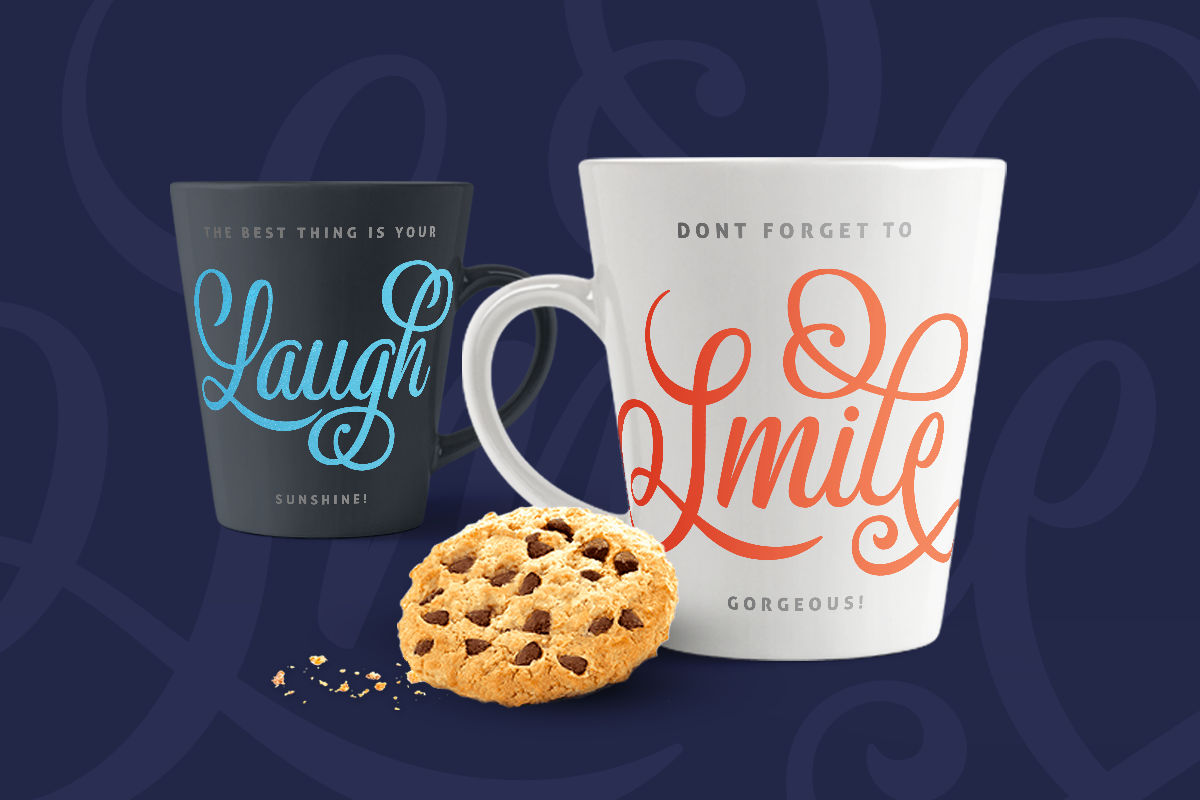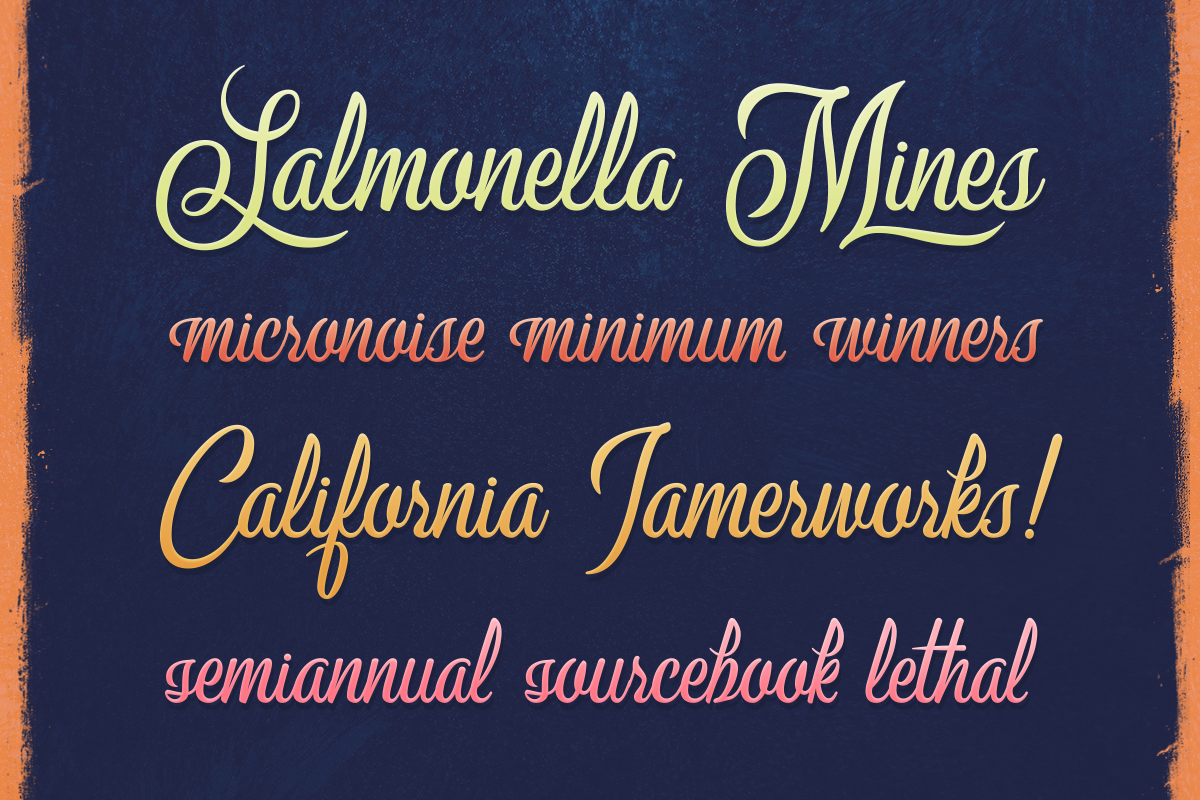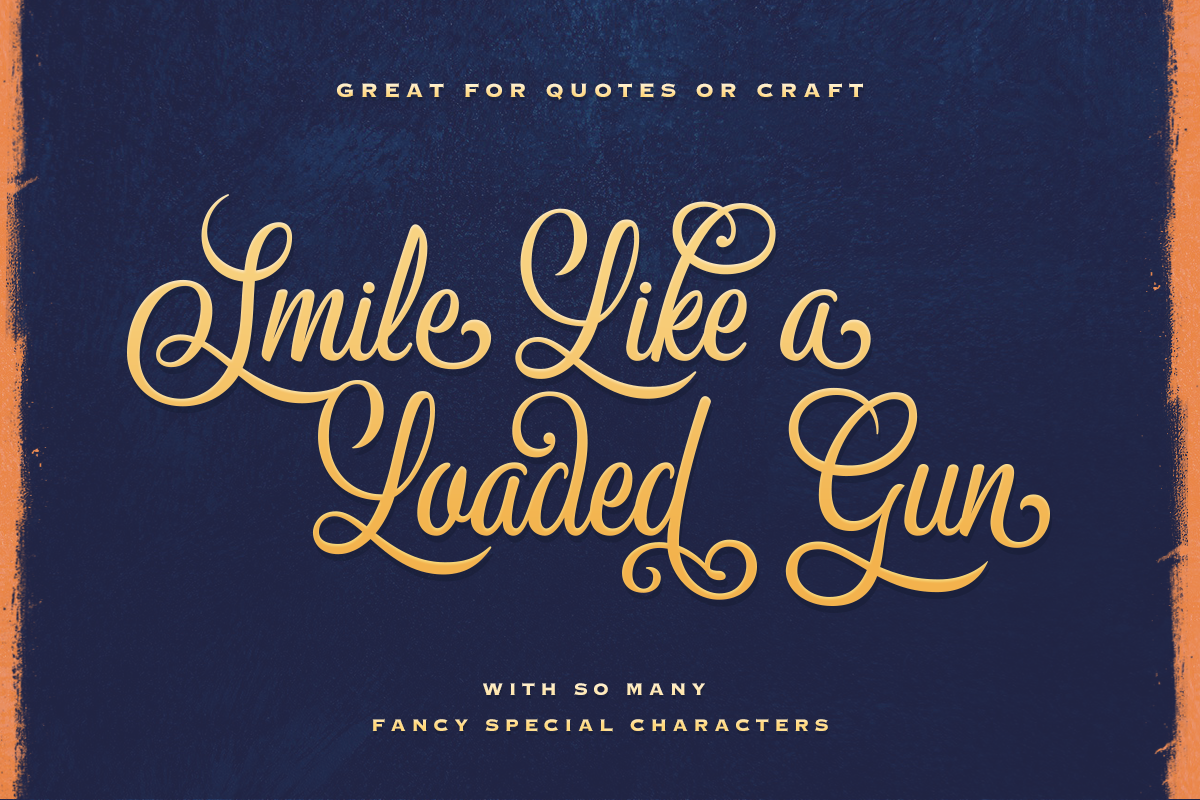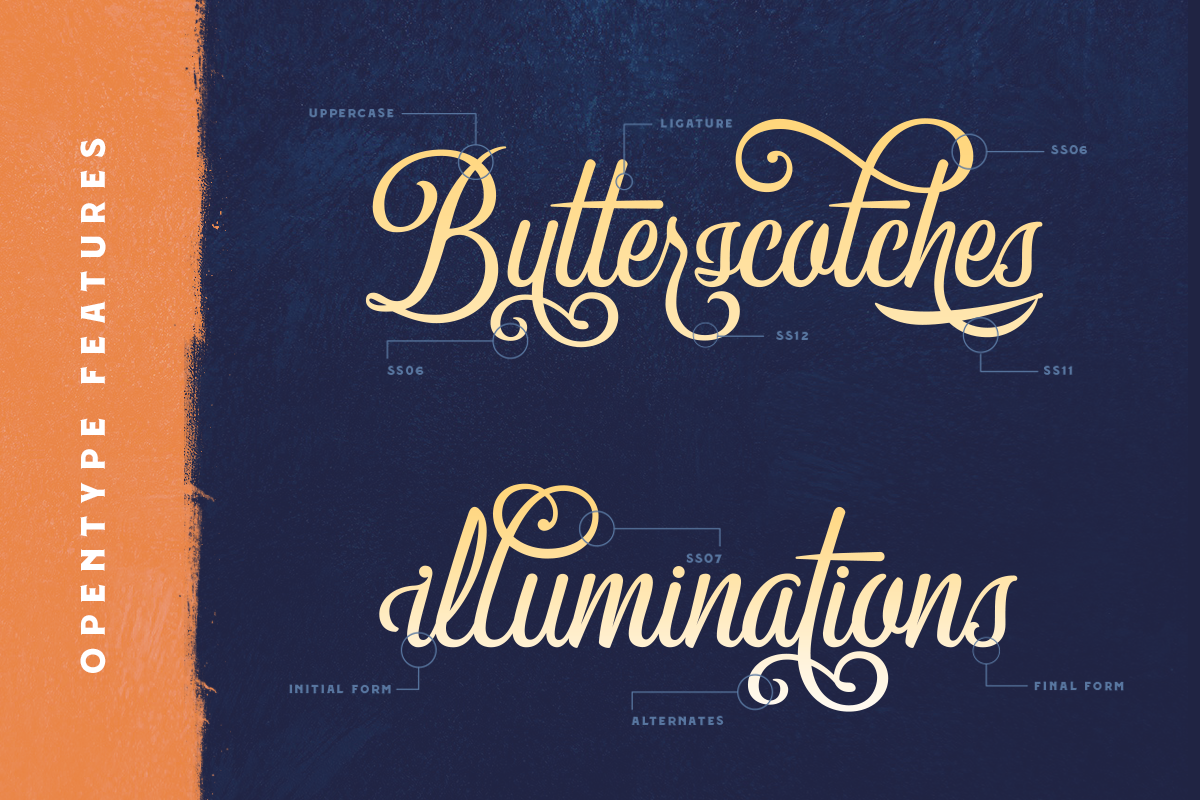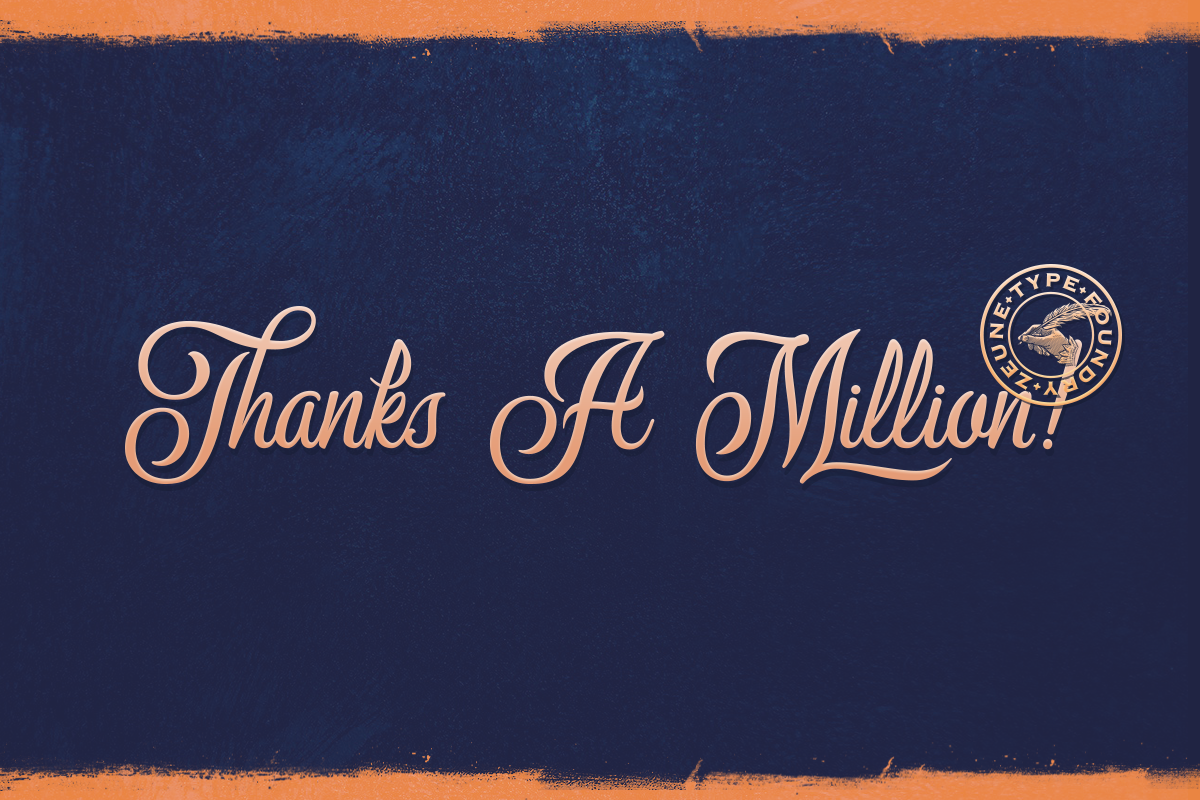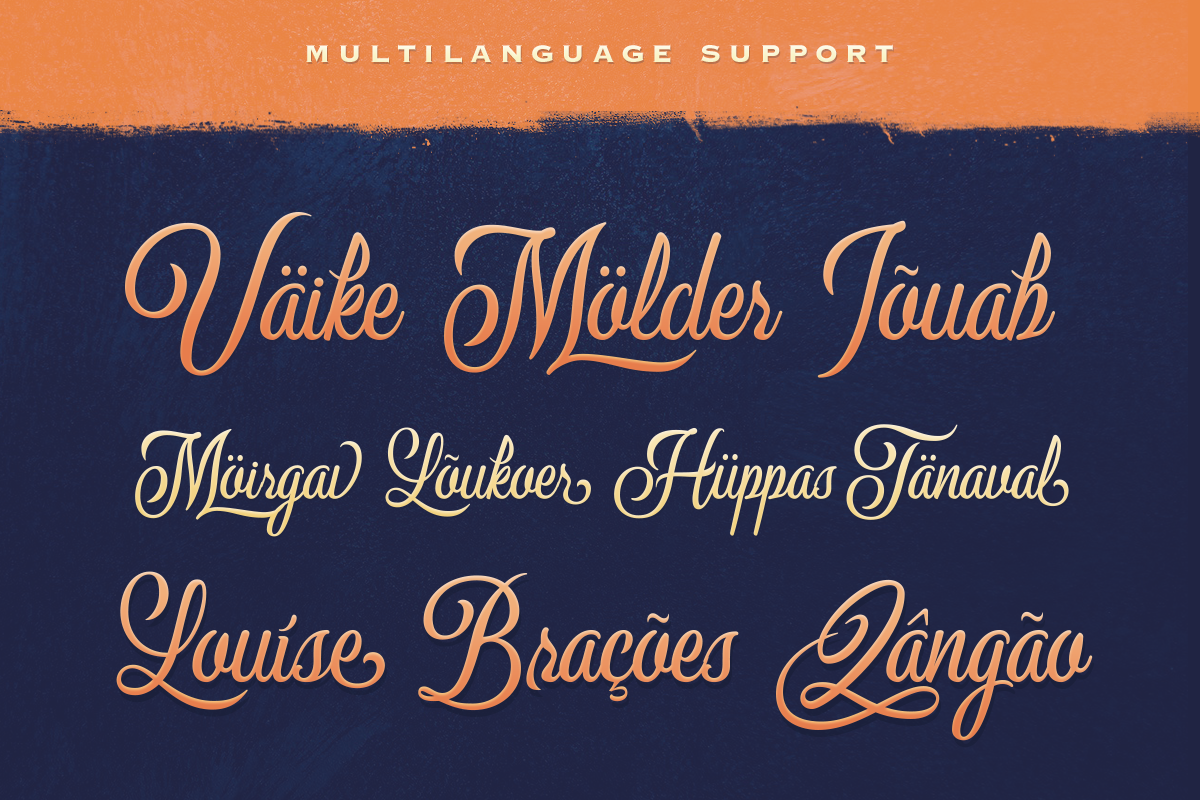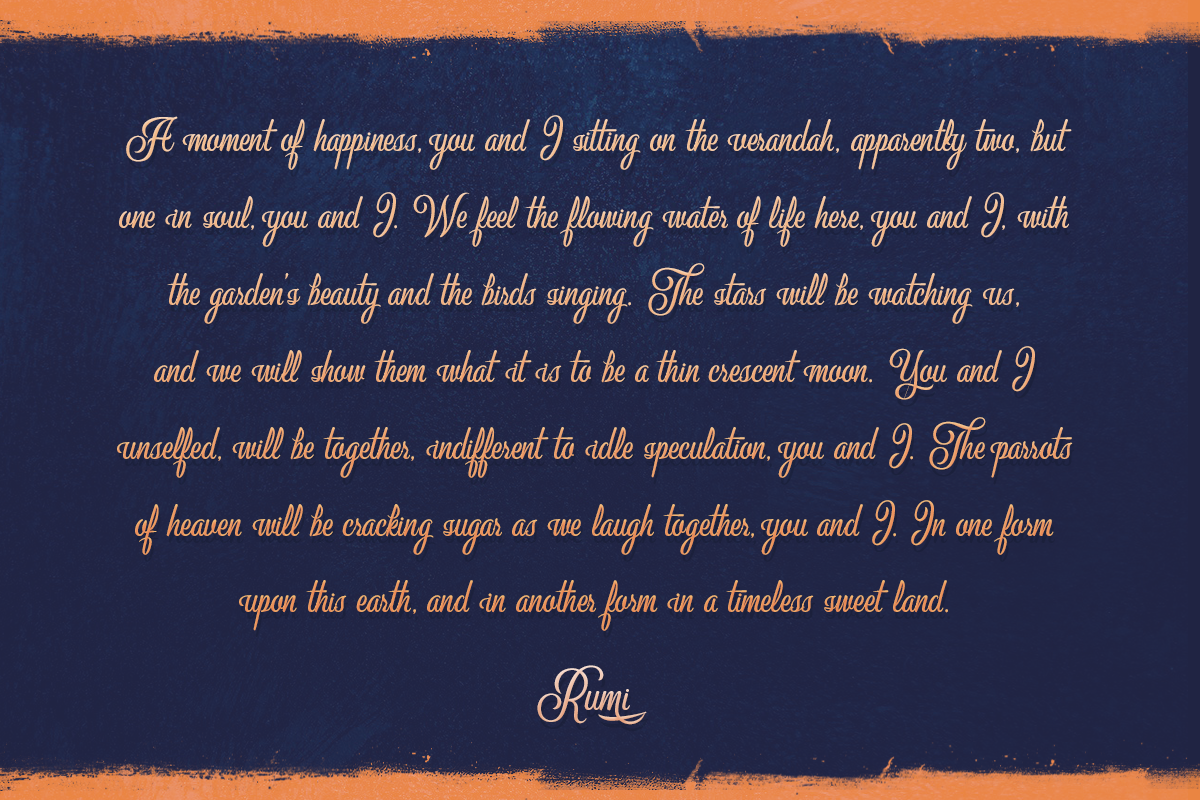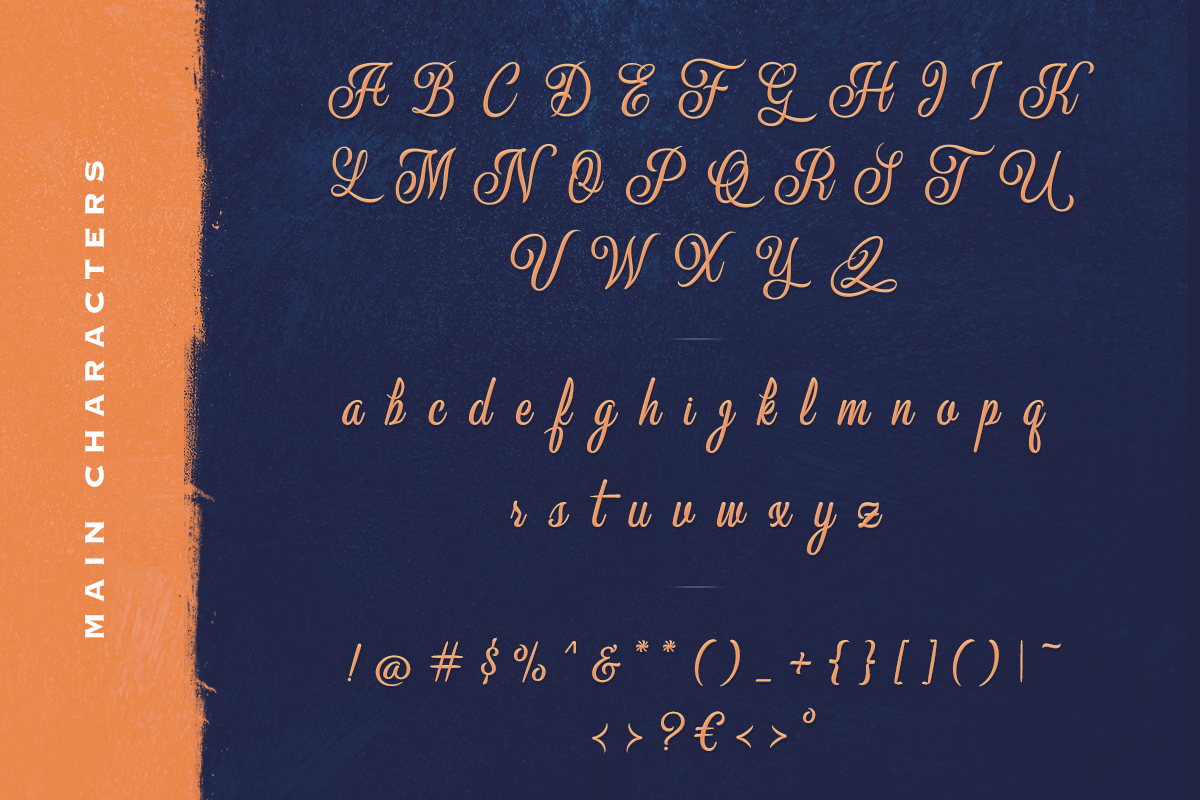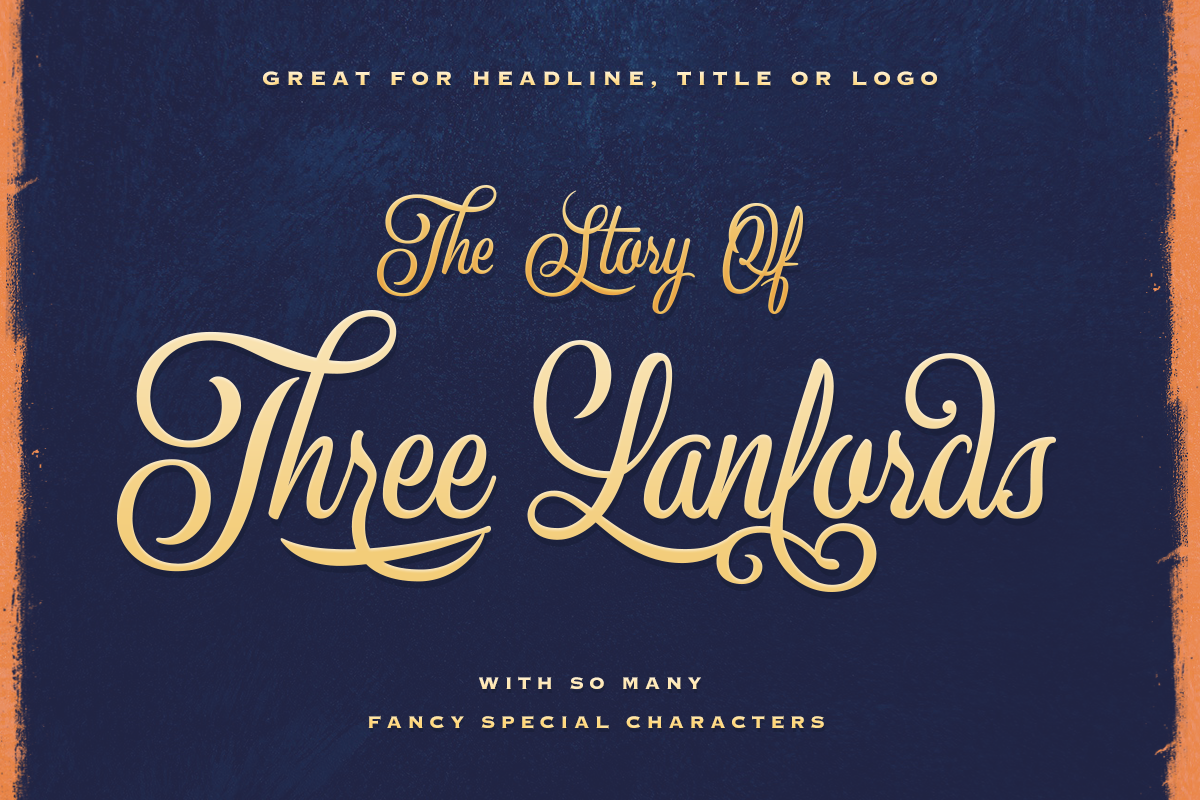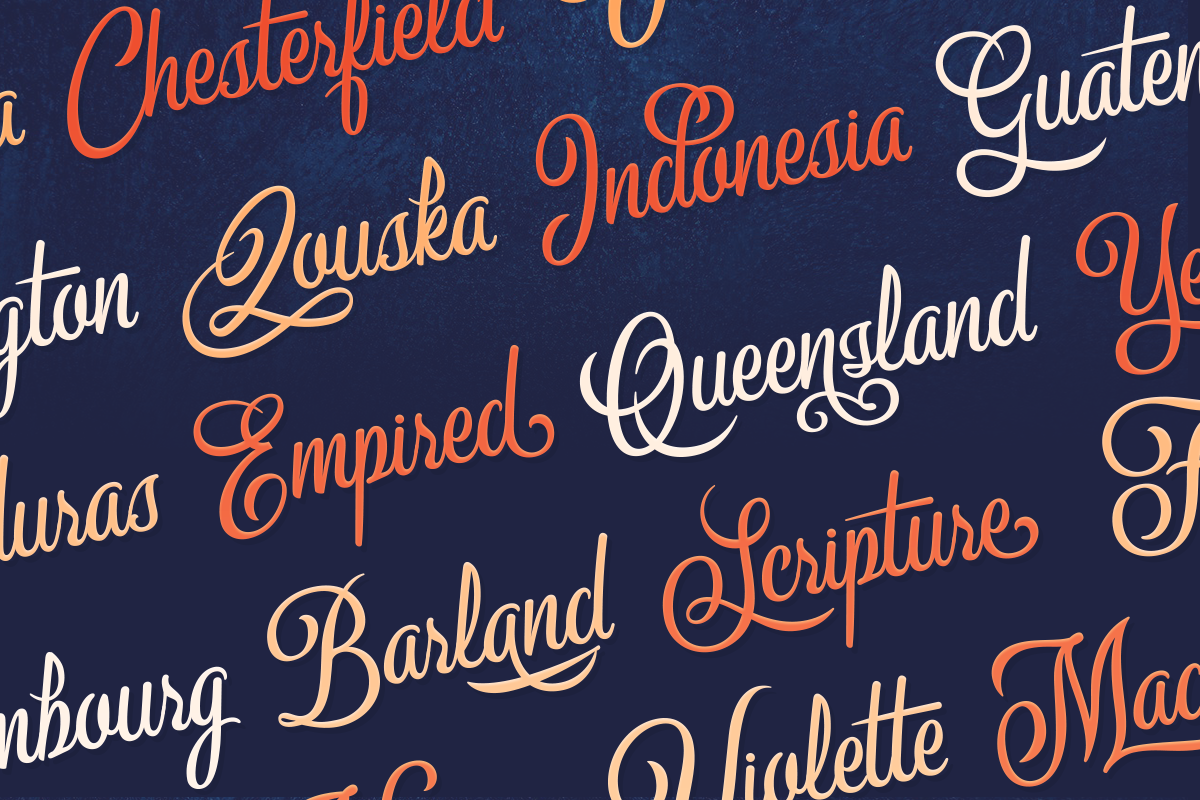
Milford Script
A Versatile Typeface with nice and fancy curved. Consist of so many special characters, nice ligatures, initial-final forms and also multi-language support.
The typeface offers numerous combination possibilities between the basic glyph set and stylistic sets. The stylistic sets are alternate alphabets that you can access by using OpenType savvy programs such as Adobe Illustrator, Adobe Photoshop CC, Affinity Designer, CorelDraw or Adobe InDesign.
Milford Script is an experimental and versatile font. Suitable for digital lettering, prints, logo, poster, t-shirt, packaging and applicable for some type of graphic design.
- Character Set A-Z
- 550+ Glyphs
- Initial forms & Terminal forms
- Discretionary Ligatures
- Stylistic Set Alternates 1-15